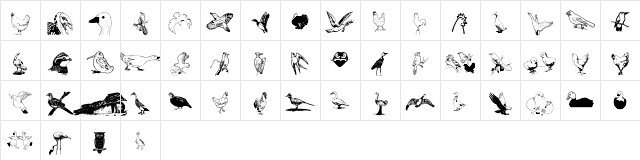
AnimalsAnimalsBirds Regular Free Font
AnimalsAnimalsBirds Regular
Design Context for AnimalsAnimalsBirds
AnimalsAnimalsBirds is a composed and adaptable typeface that performs quietly and consistently across a wide range of design contexts.